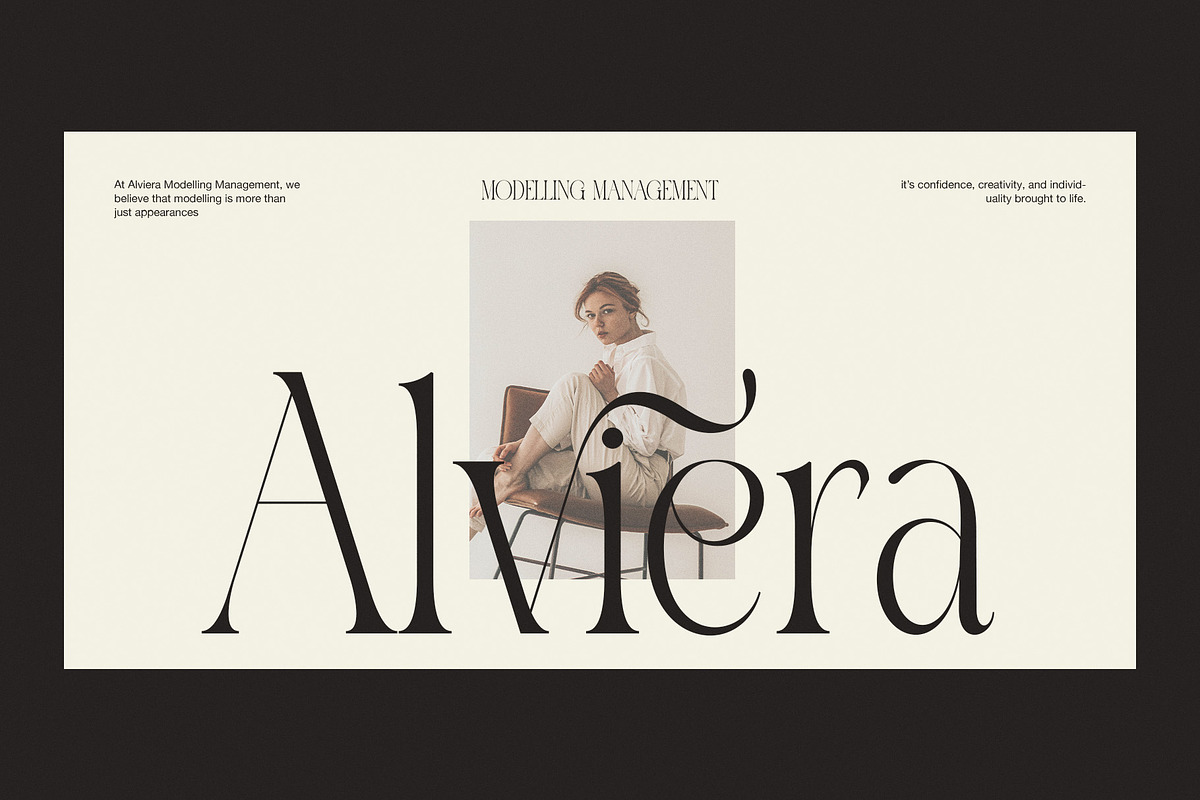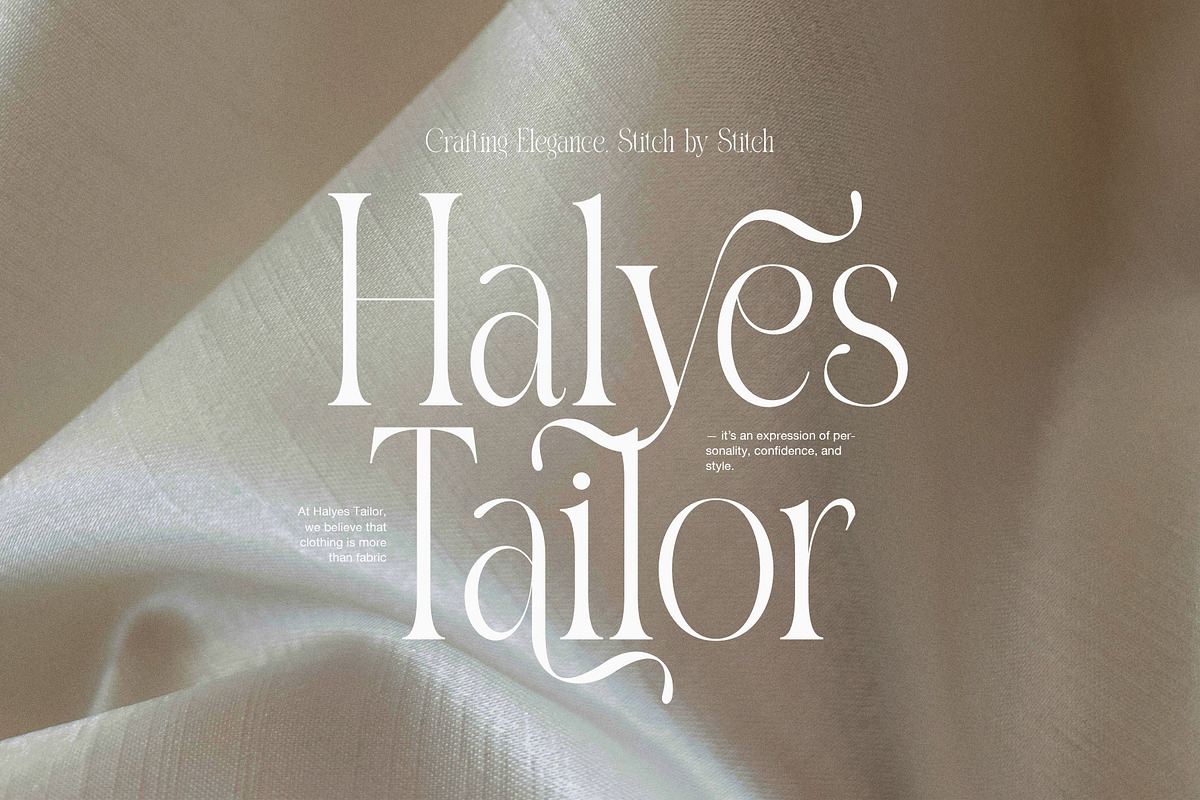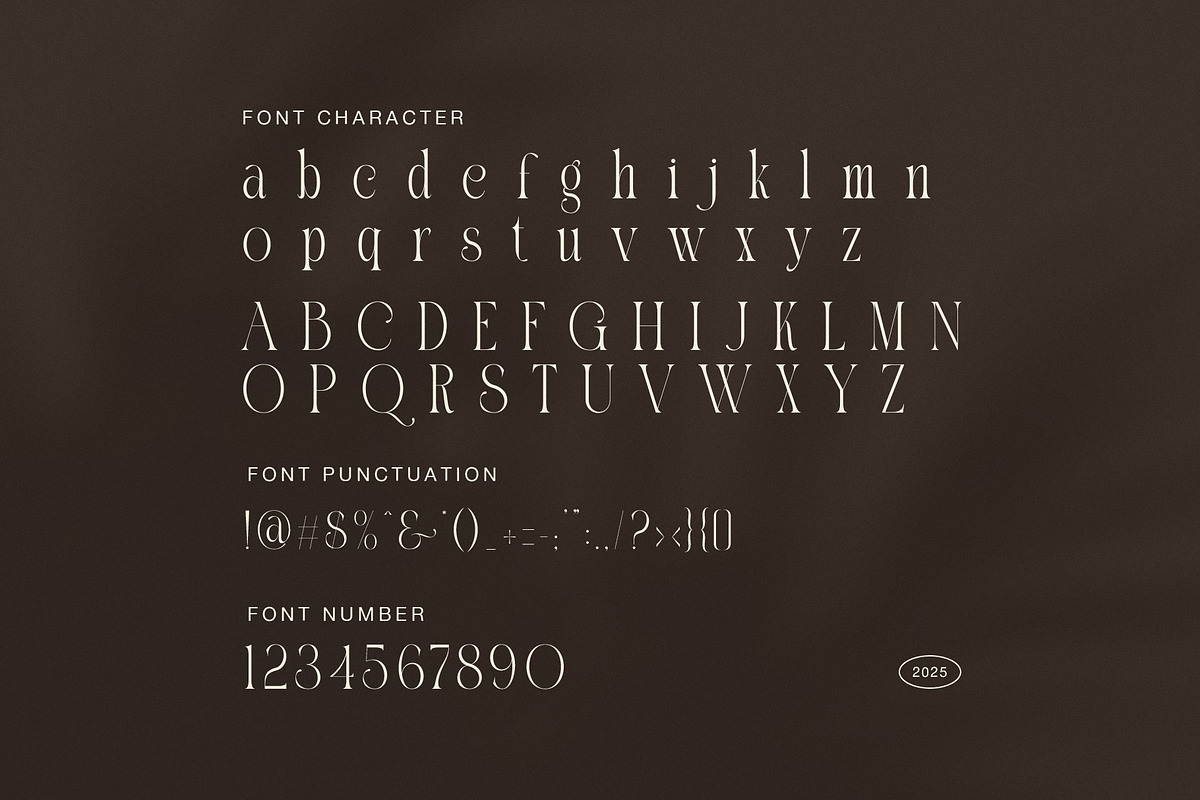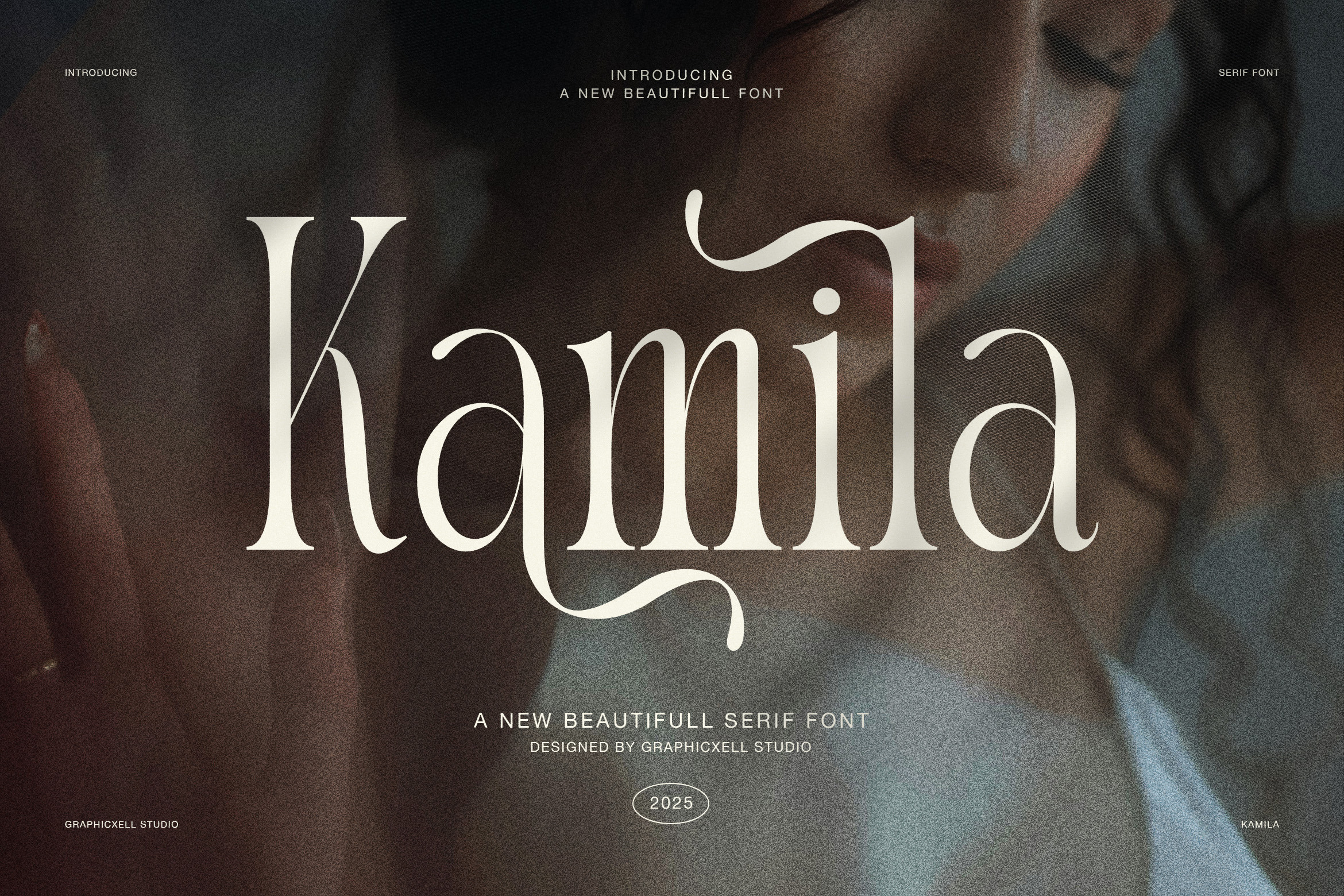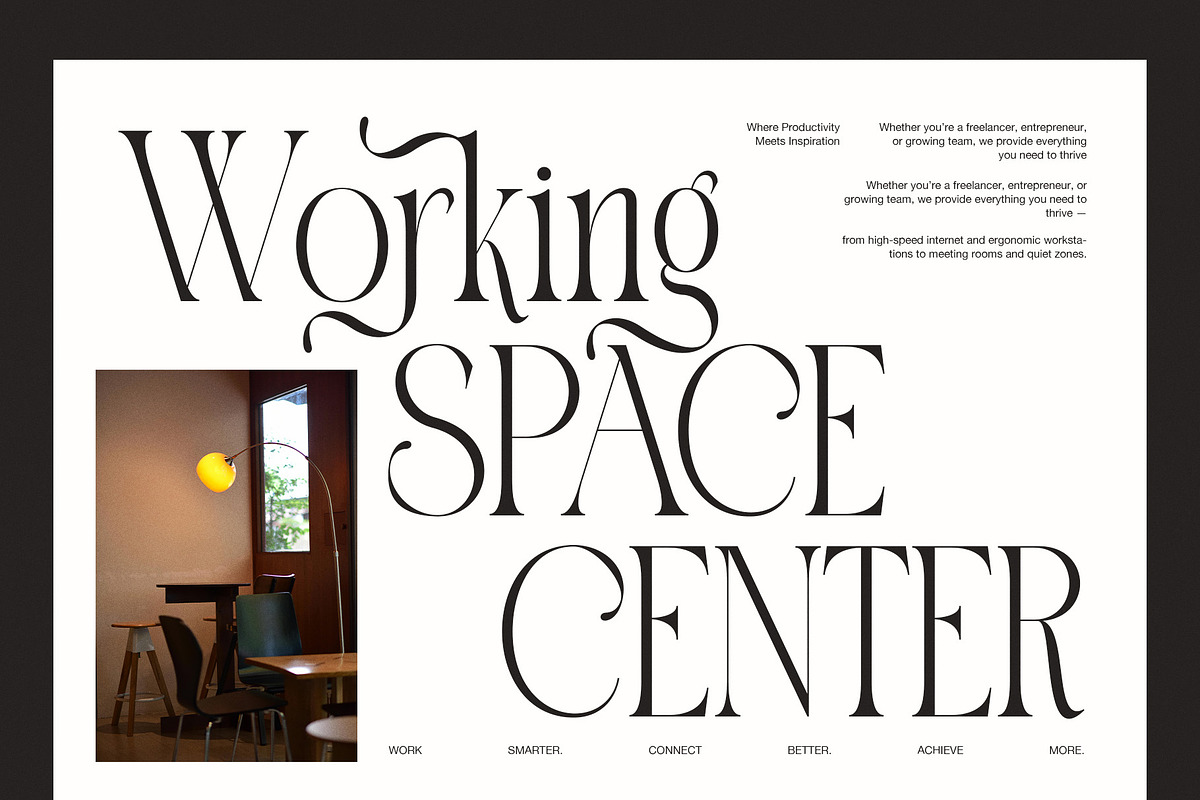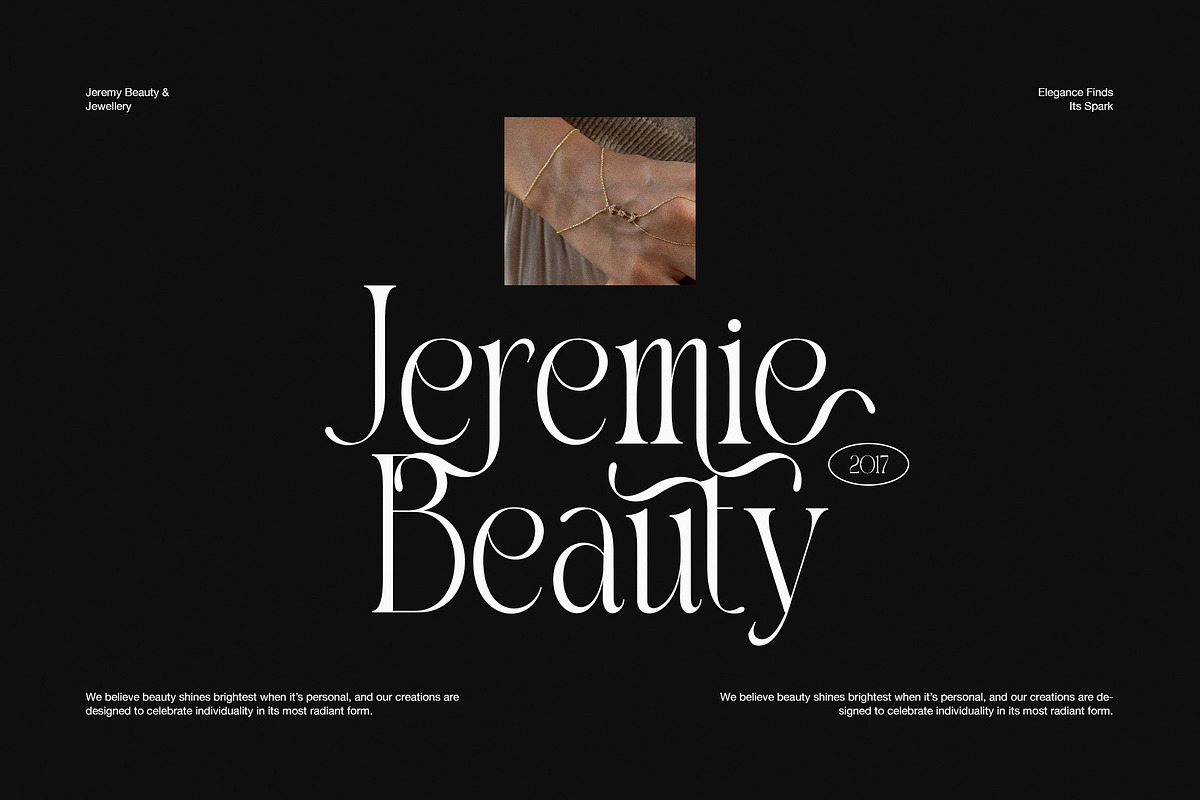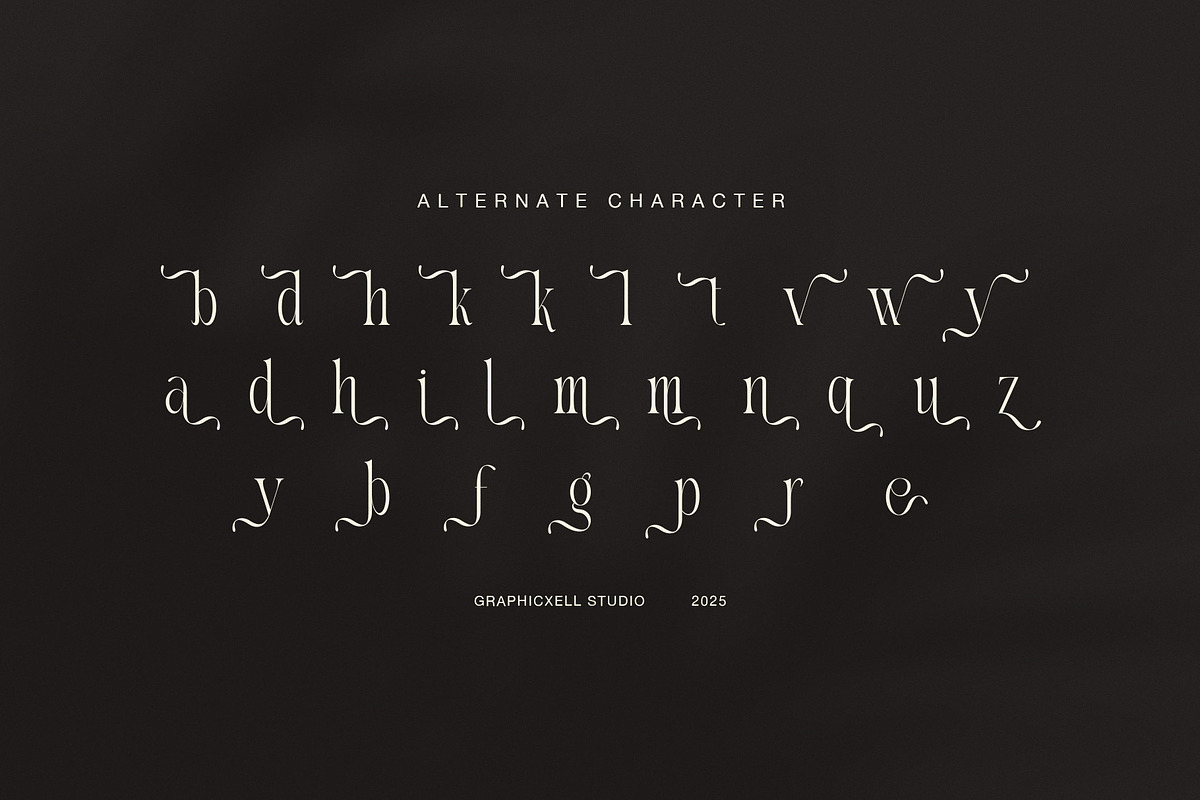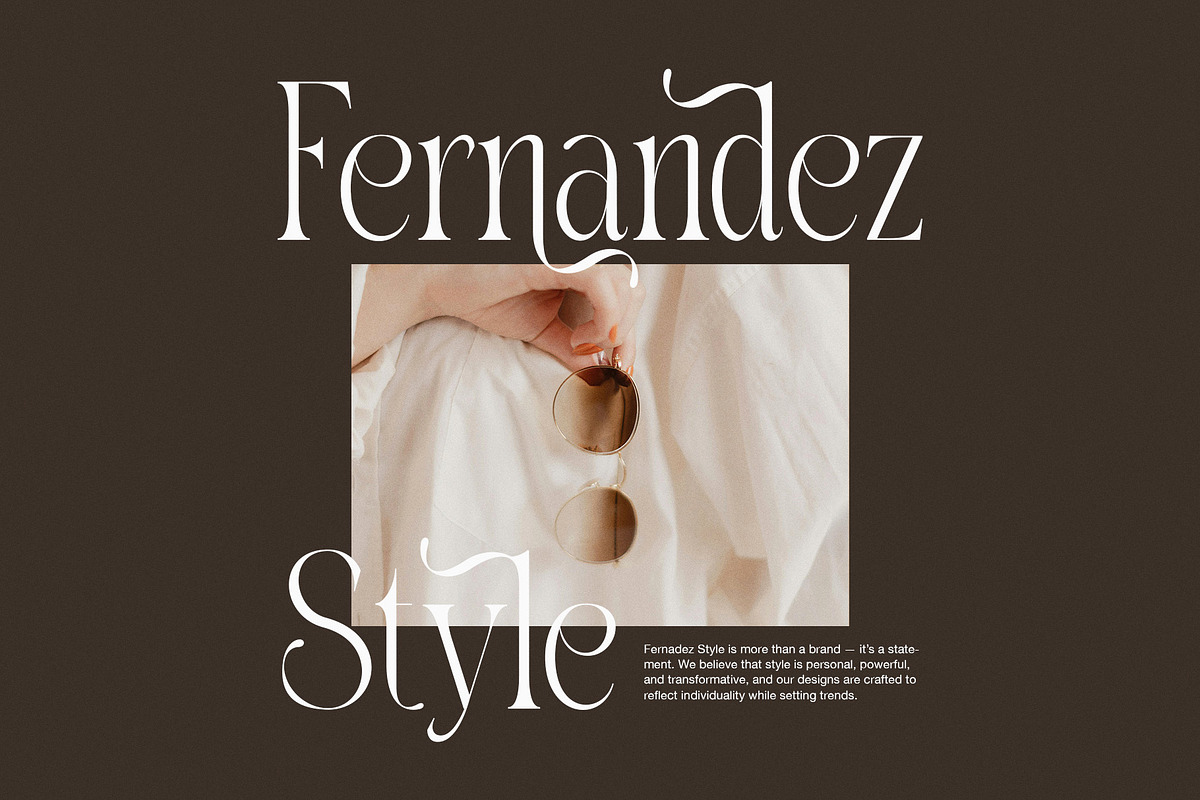
Kamila Elegant Modern Serif Font
Kamila is an elegant modern serif font created to express grace, confidence, and refined beauty. It features smooth curves, balanced contrast, and stylish swashes that feel soft yet expressive. Because every letter feels intentional, Kamila delivers elegance without losing clarity.
This serif font blends classic sophistication with modern fashion style. As a result, designers choose Kamila for editorial layouts, beauty branding, and luxury visuals. Moreover, its subtle decorative strokes add personality while keeping compositions clean and readable. Each character flows naturally across headlines and display text.
Kamila suits designers who value detail and emotion. Therefore, it works beautifully for logos, fashion campaigns, jewellery branding, and lifestyle projects. In addition, it performs well in both large headlines and supporting text, creating harmony across layouts.
Why choose Kamila Serif Font?
Elegant serif design with graceful swashes
Modern contrast with soft, feminine character
Clear readability for print and digital use
Perfect for fashion, beauty, and editorial branding
Timeless style with contemporary appeal
Furthermore, Kamila adapts smoothly to many creative industries. Whether you design for modelling agencies, interior studios, boutiques, or premium services, this font adds warmth and authority. Because spacing stays balanced, Kamila pairs beautifully with minimalist sans-serif fonts.
Kamila does more than display words. Instead, it shapes mood and identity. Each serif feels refined, while every curve supports visual flow. Consequently, your designs appear polished, stylish, and memorable.
Ultimately, Kamila offers a modern serif solution for designers who seek elegance and versatility. Use it to elevate branding, enrich editorials, and communicate beauty with confidence.